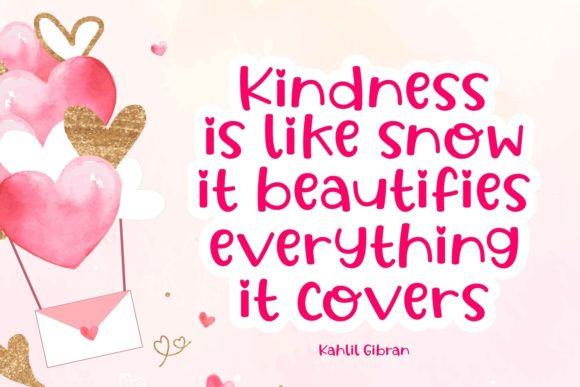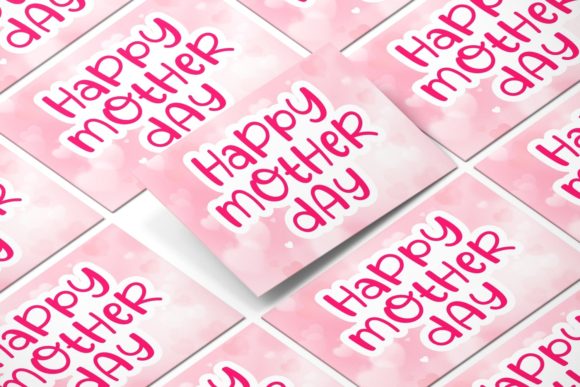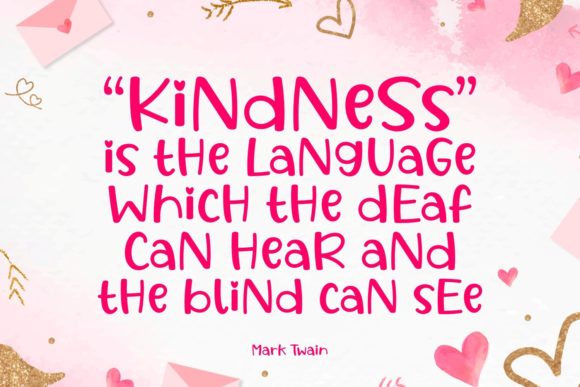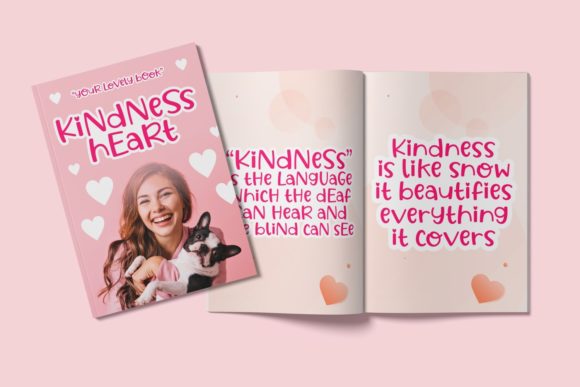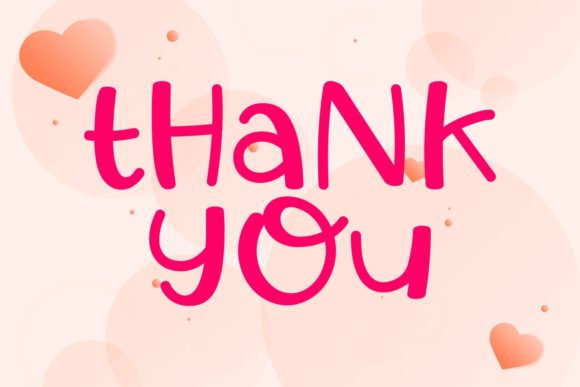
Unlock the Power of Kindness Heart Font
Have you ever stumbled upon a font that instantly sparks joy and makes you feel like a kid in a candy store? For designers, that moment is pure magic. It’s the moment when creativity flows, and ideas start pouring in. For me, that moment happened when I discovered the Kindness Heart Font.
This adorable, handwritten font is more than just a pretty face – it’s a tool to spread love and positivity. With its quirky and playful vibe, the Kindness Heart Font is perfect for adding a touch of whimsy to your designs. Whether you’re working on a children’s book, a social media campaign, or a wedding invitation, this font is sure to bring a smile to your face and the faces of your audience.
- Unique Characteristics: Features a unique, hand-drawn design with a mix of rounded and pointed shapes, creating a heartwarming and friendly feel.
Designer Review: Kindness Heart Font
I recently had the chance to work with the Kindness Heart Font, and I have to say it’s a unique and interesting choice for any project that needs a touch of warmth and love. ✨ Here are a few things that work well about this font:
- Whimsical touch: The Kindness Heart Font adds a playful and carefree vibe to any text, making it perfect for projects that need a lighthearted feel.
- Emotional connection: The heart-shaped letters create an emotional connection with the viewer, making it ideal for projects that aim to inspire or uplift.
- Customization: The font can be customized to fit any color scheme or style, allowing designers to make it fit seamlessly into their project.
- Limited legibility: In smaller text sizes, the heart-shaped letters can become difficult to read, especially for those with visual impairments.
- Not suitable for formal projects: The playful and whimsical nature of the font may not be suitable for formal or professional projects.
Overall, I think the Kindness Heart Font is a great choice for designers who want to add a touch of warmth and love to their projects. While it may not be suitable for every project, it’s definitely a unique and interesting option to consider.
Use the Kindness Heart Font to add a touch of warmth and personality to your designs.
Pair the Kindness Heart Font with bold, modern fonts for a striking contrast.
Experiment with different font sizes and colors to create a visually appealing effect.
Use the Kindness Heart Font for:
Valentine’s Day and love-themed designs
Children’s books and educational materials
Charity and non-profit campaigns